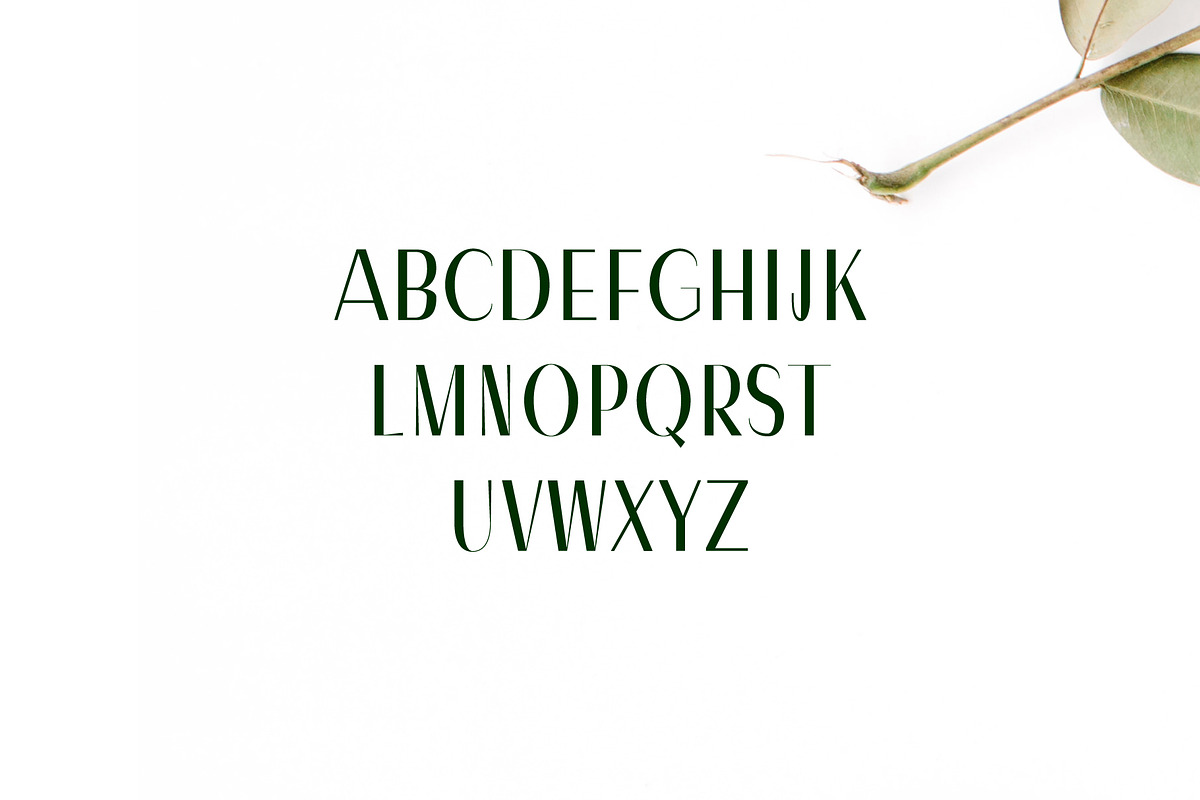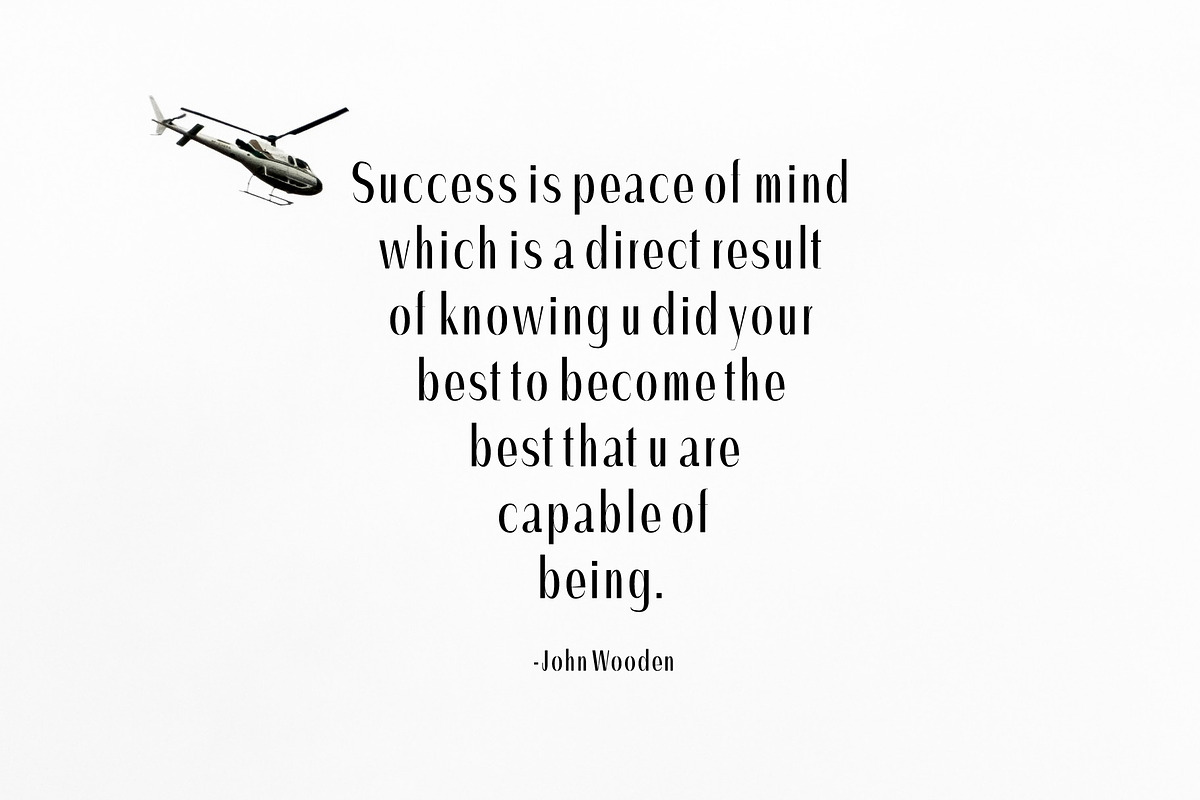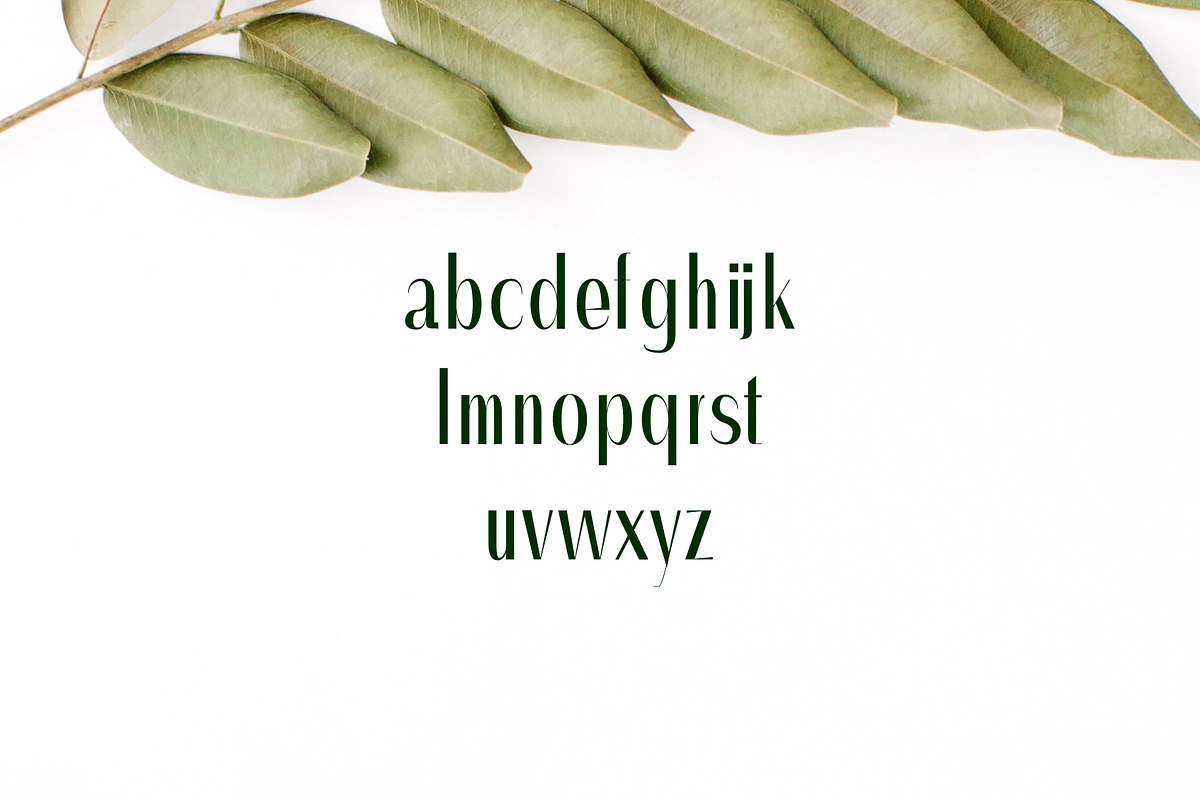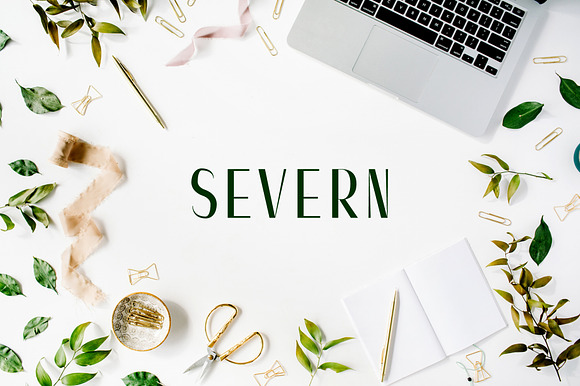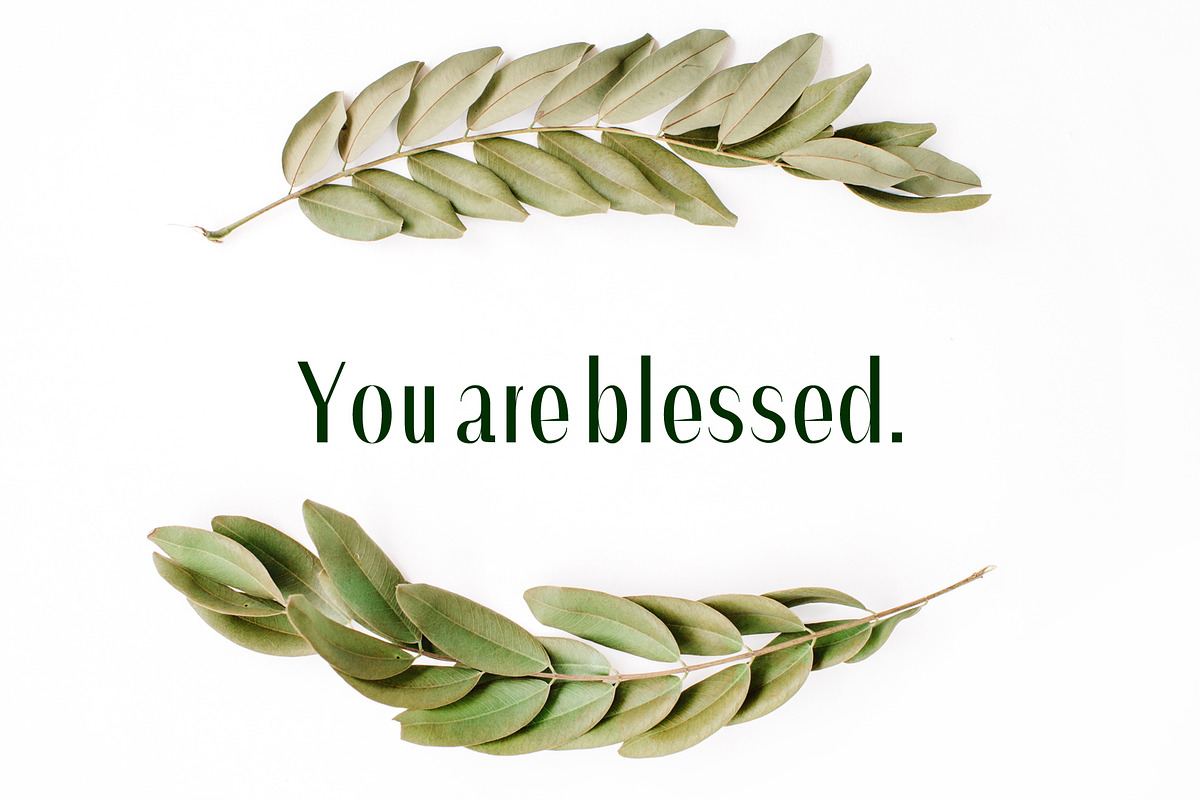
Severn Sans Serif Font Family
Severn Sans Serif Font Family is a modern minimalist font to make your design more elegant. It comes with 3 weights. Severn is good for making creative templates, stationary, logos, headlines, banners and templates etc.
Why Severn Sans Serif Font Family is worth a look
Severn Sans Serif Font Family by Creativetacos fits naturally into Branding, posters, packaging, typography.